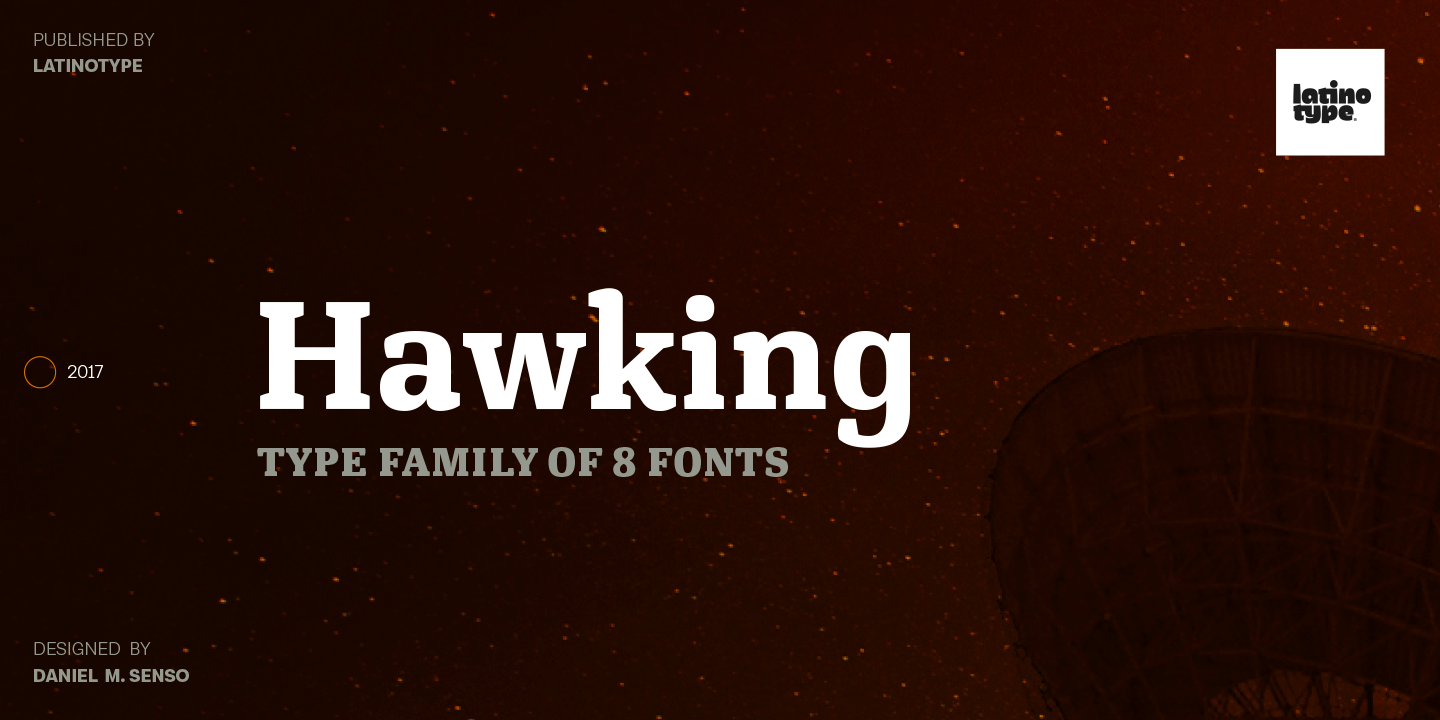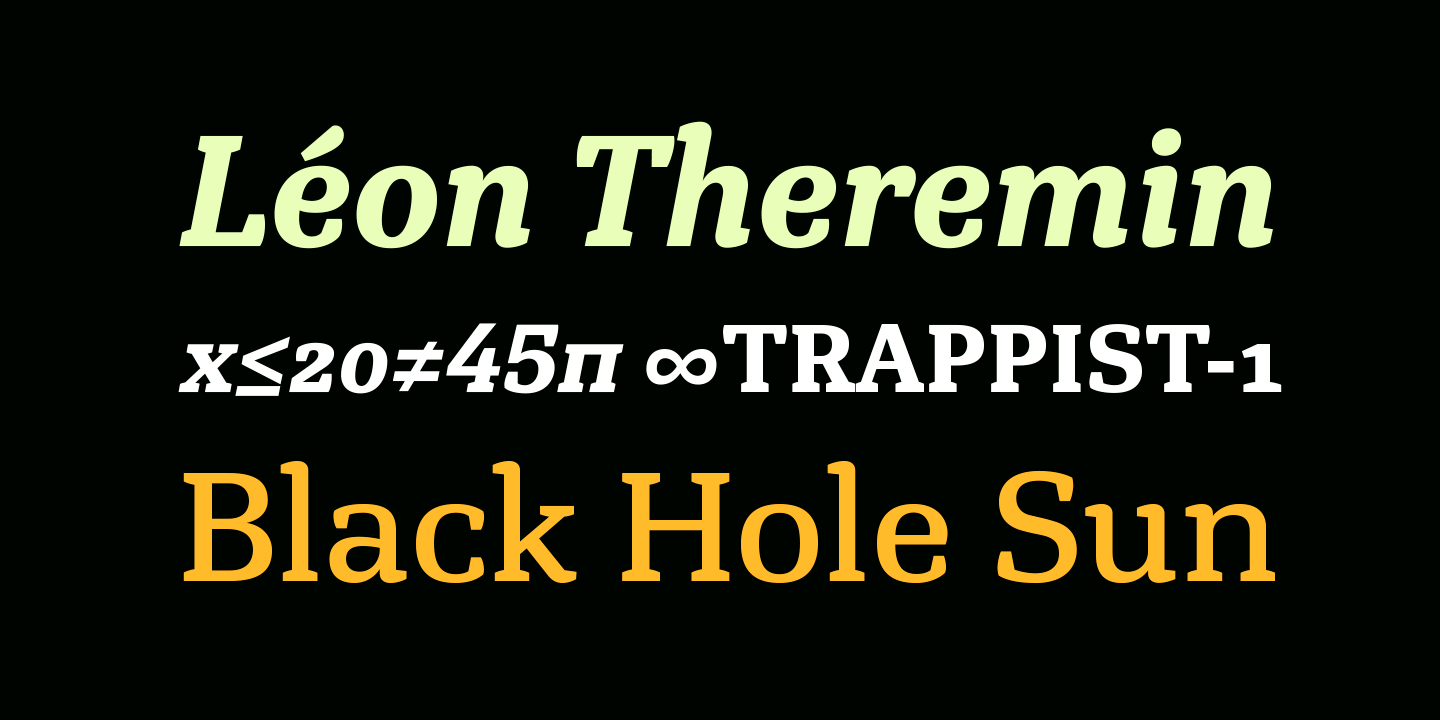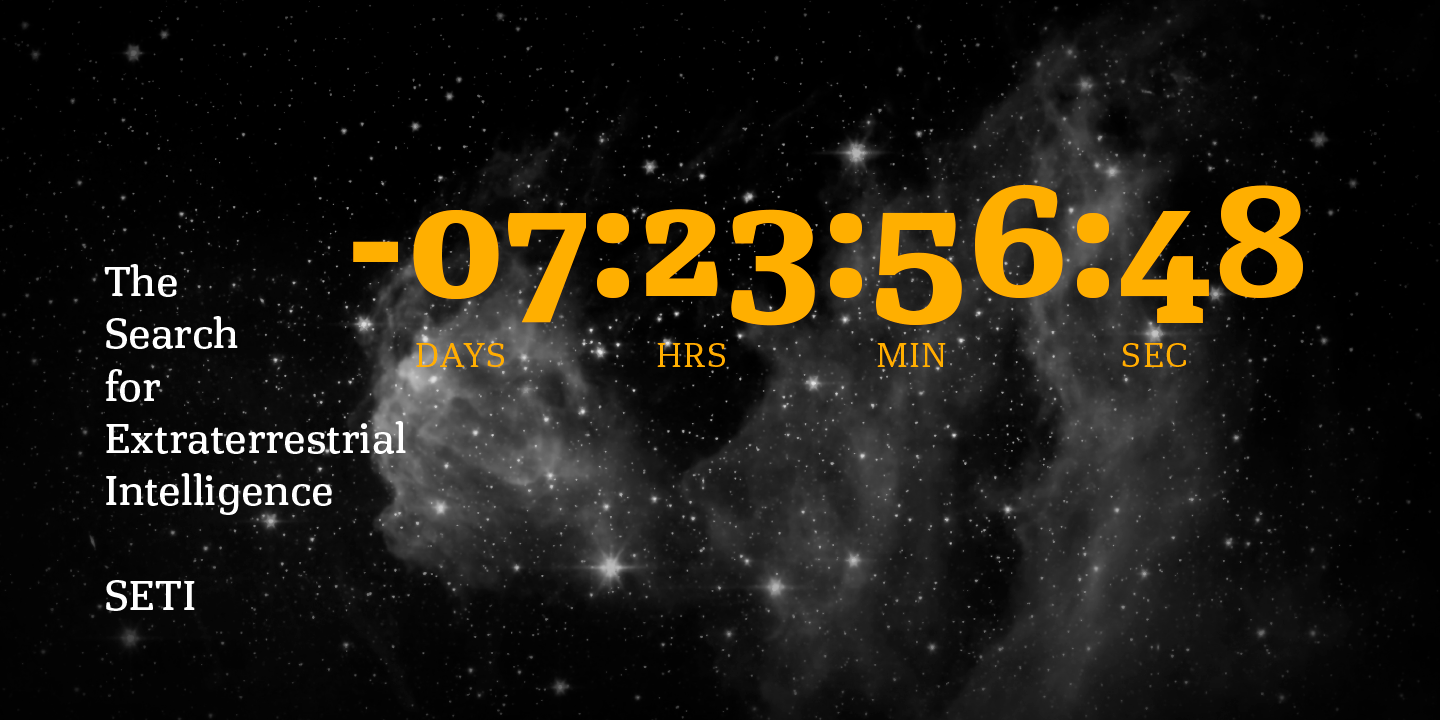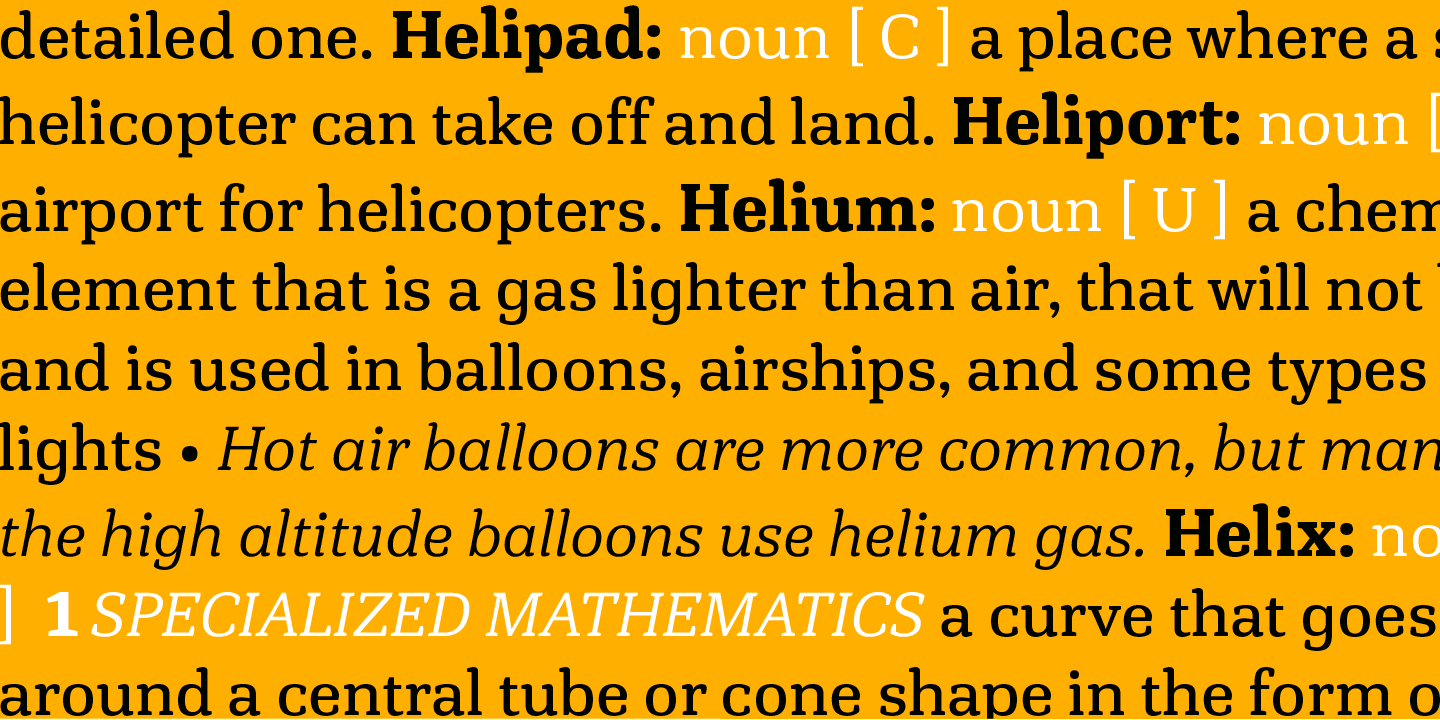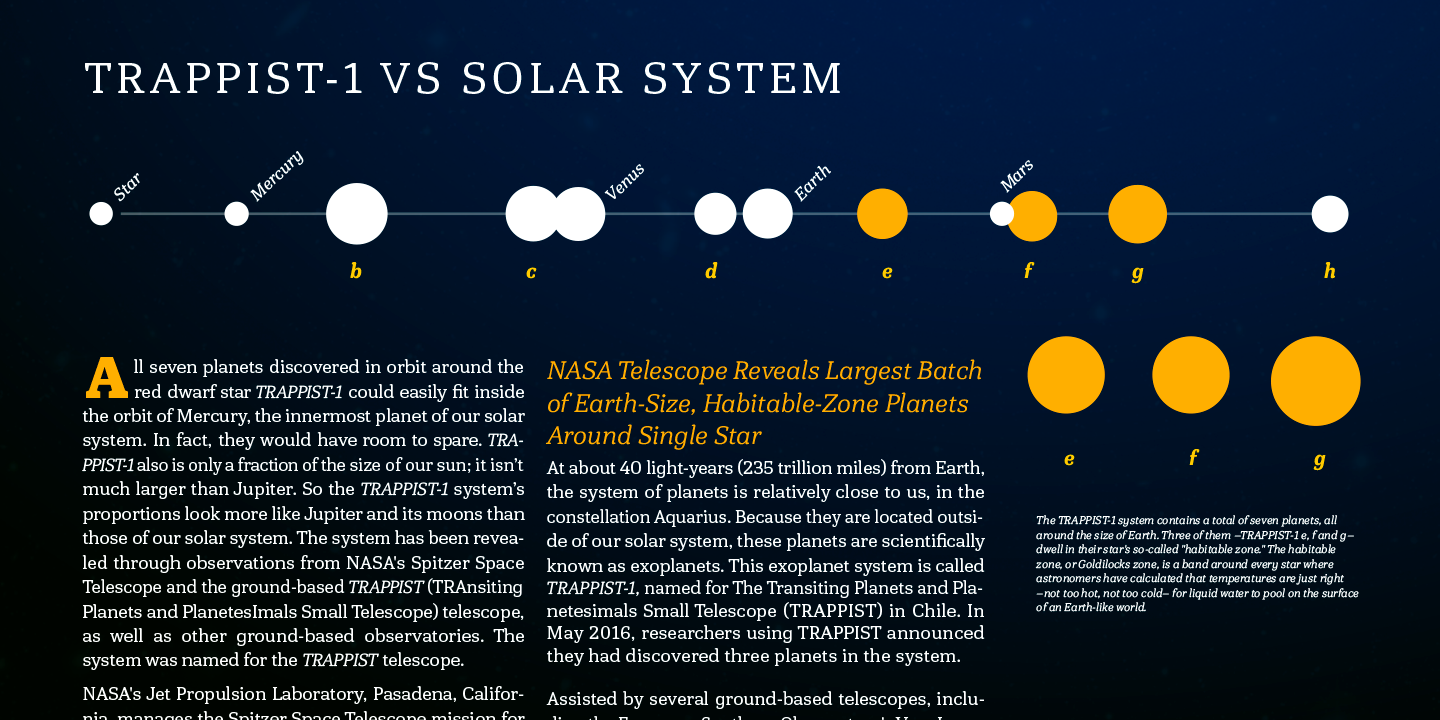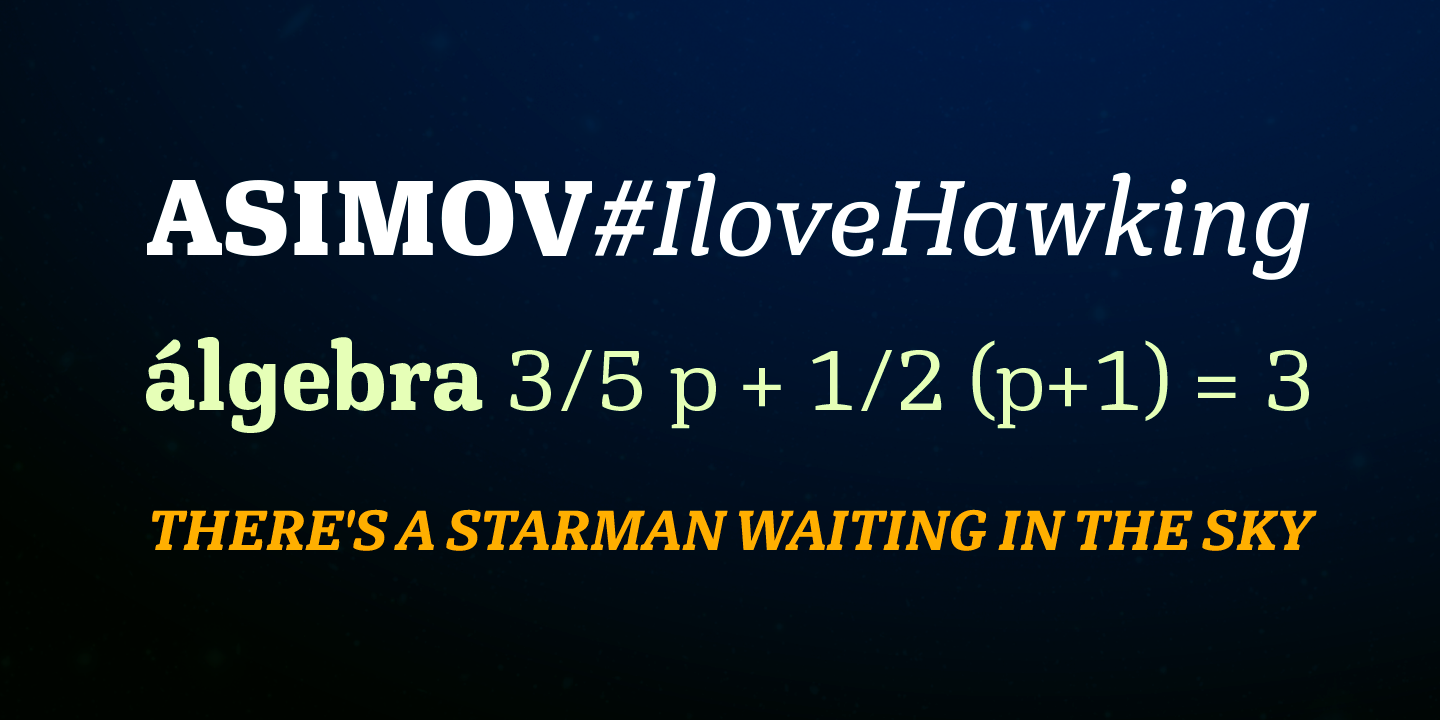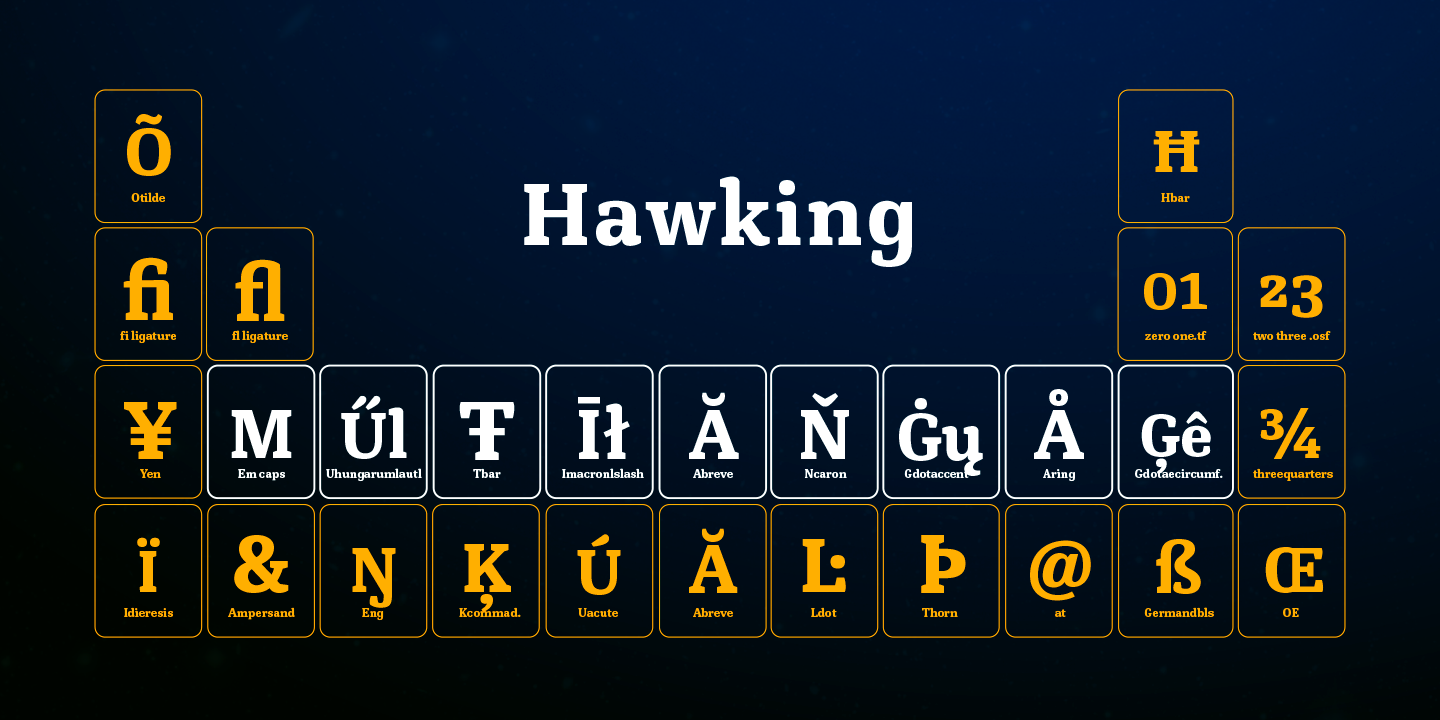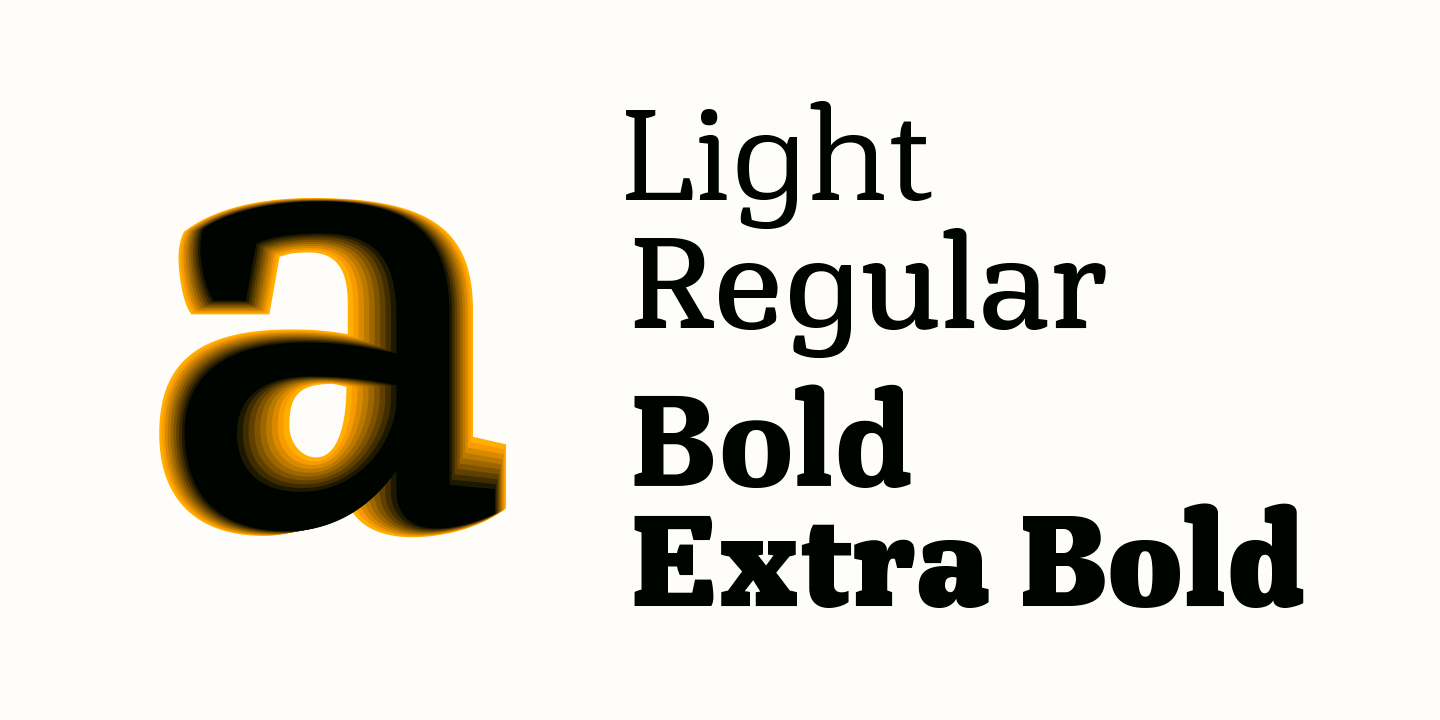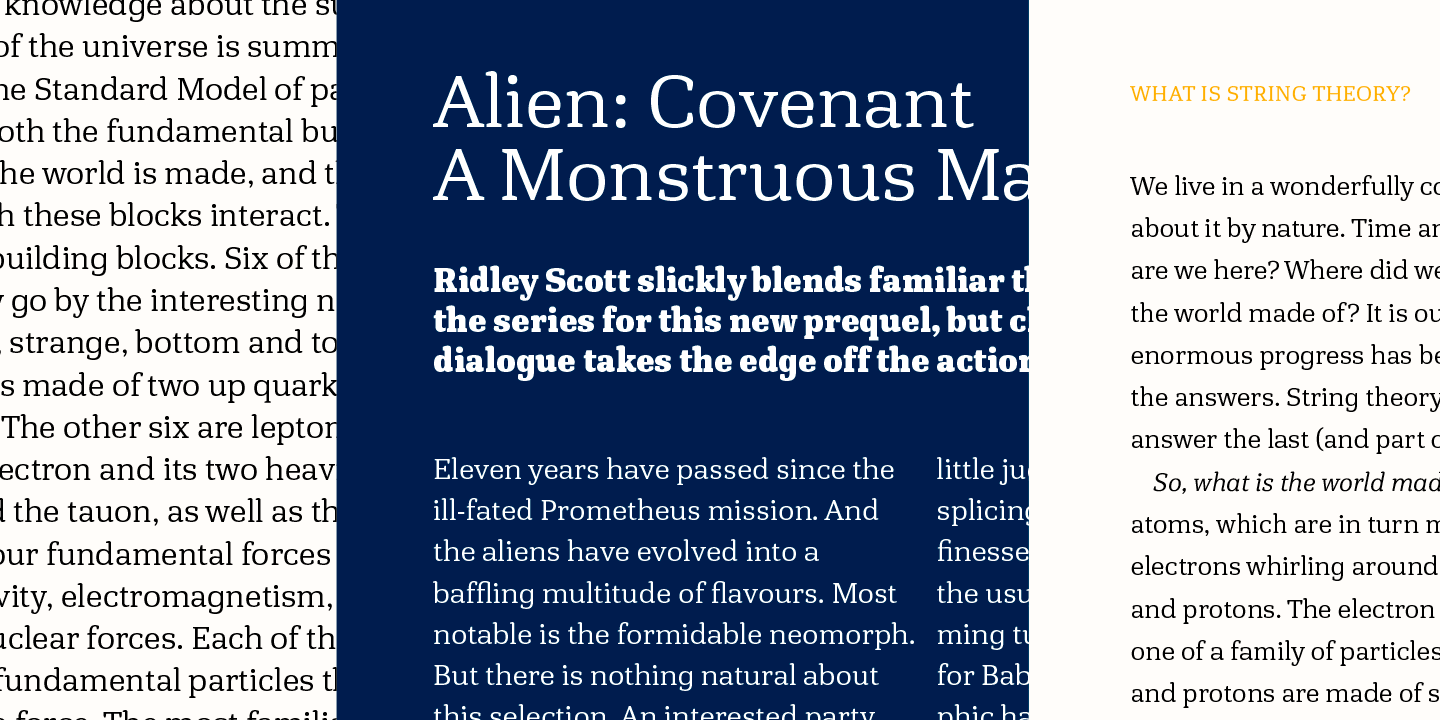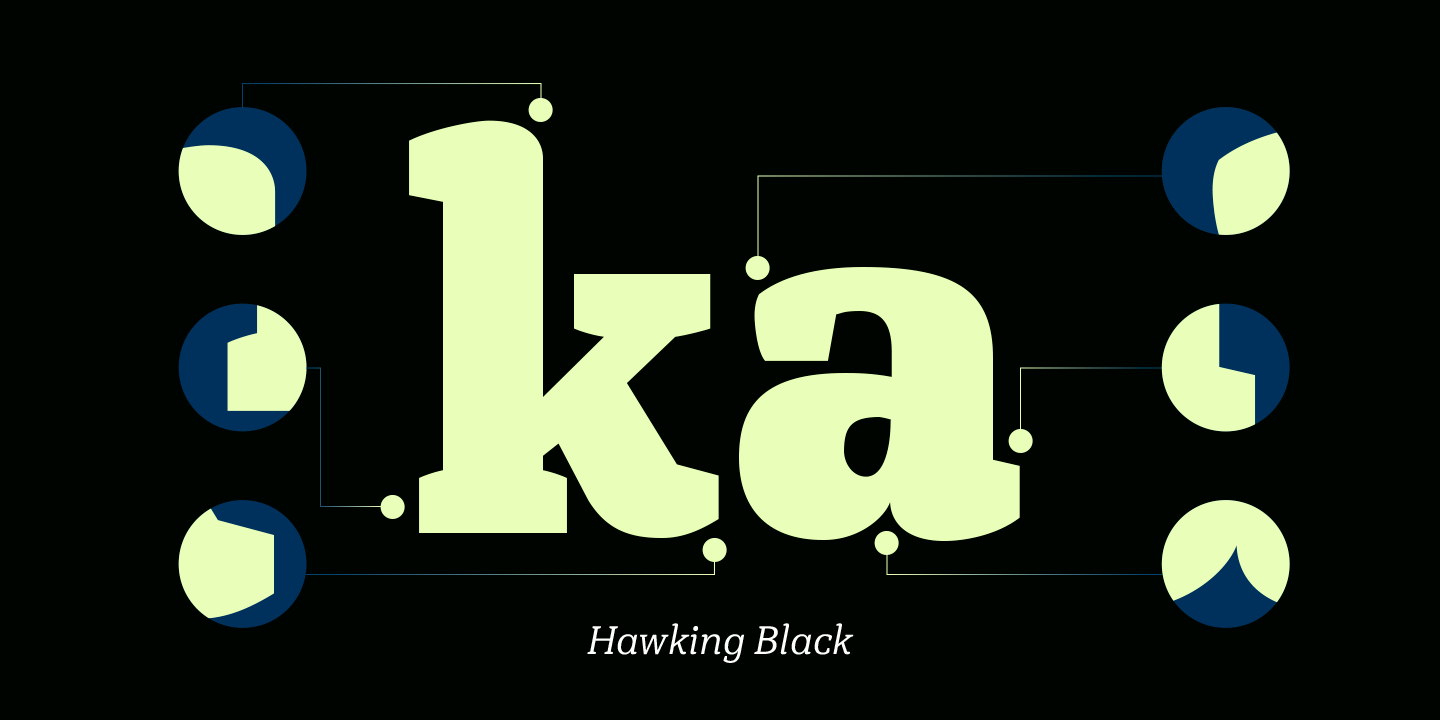
Hawking Family (8 fonts)
Hawking was specially designed for use in scientific publications (hence its name), but it can also be used with other types of continuous text, such as journalistic, technical or literary texts. Its heavier weights make it also well-suited for any display use (e.g. headlines)
Hawking comes in 8 styles: 4 weights plus matching true italics. The font also includes ligatures, proportional oldstyle figures, and tabular and lining figures. The family comes with the Latinotype’s standard character set that supports 213 different languages.
Old-style Digits, Ligatures